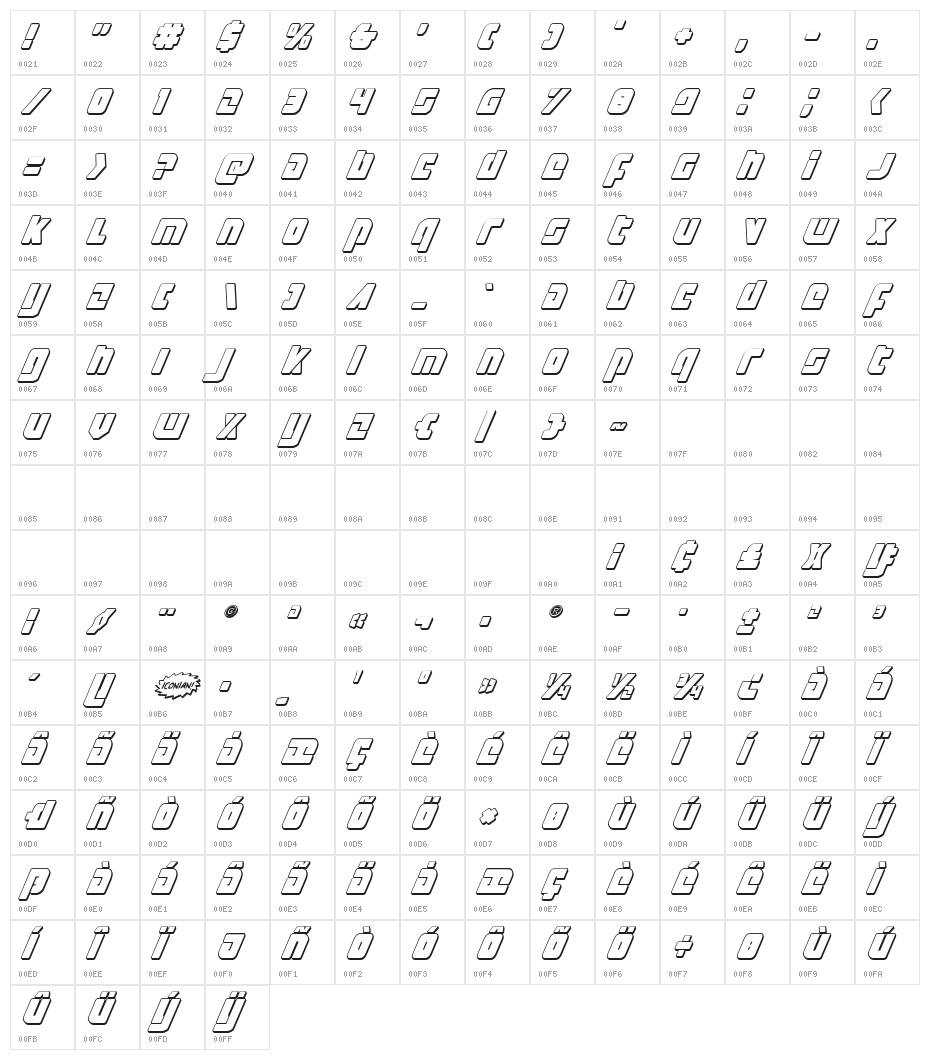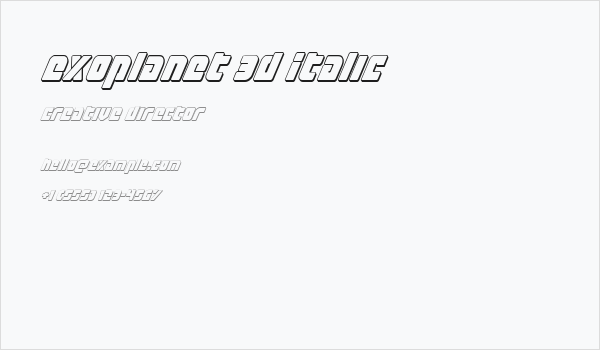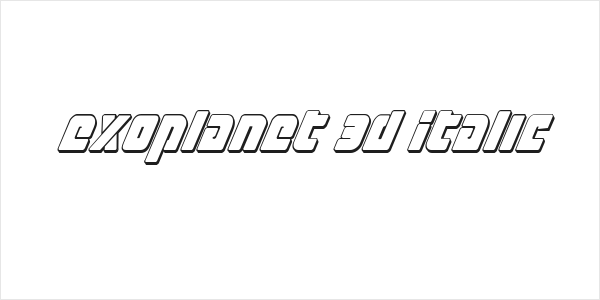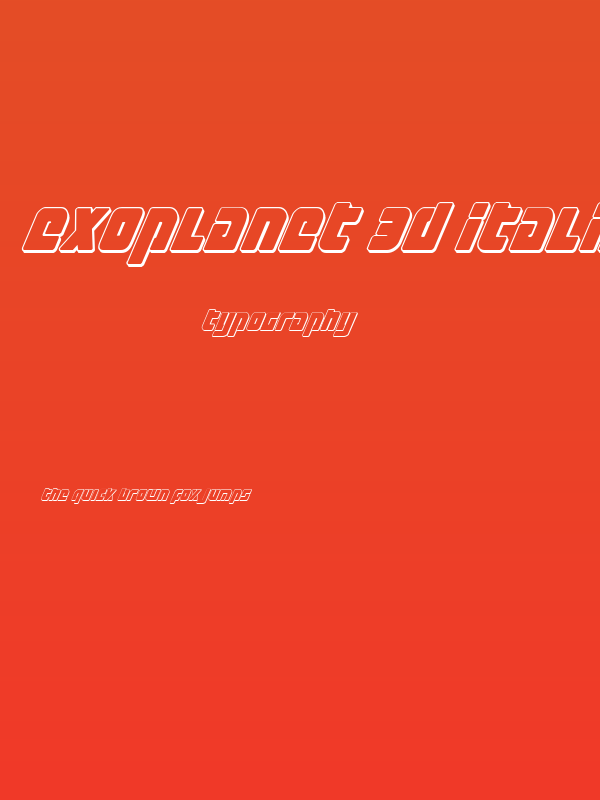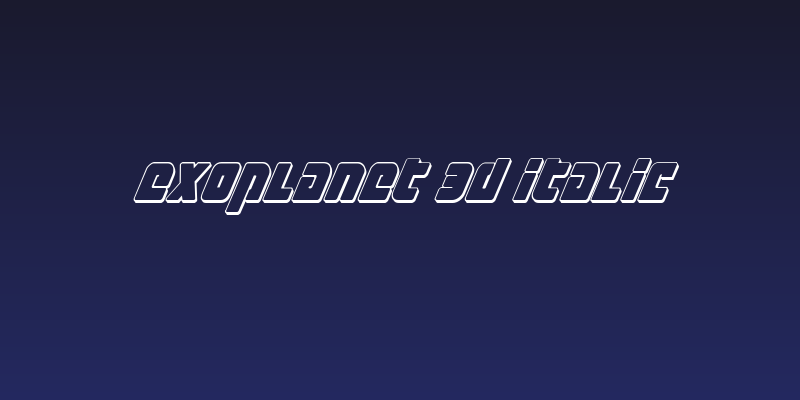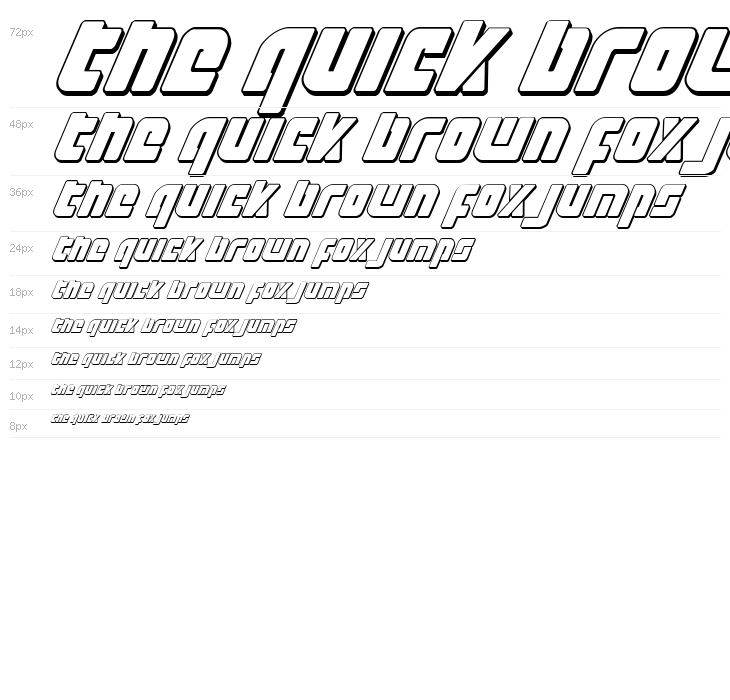
Exoplanet 3D Italic Font
Exoplanet 3D Italic Description
This font features a futuristic and bold design with a 3D effect that gives it a dynamic and modern look. The characters are outlined with a consistent stroke, creating a sense of depth and movement. The italicized style adds a sense of speed and forward motion, making it ideal for projects that require a contemporary and energetic feel. The uppercase and lowercase letters are well-proportioned, and the numbers and special characters maintain the same stylistic elements, ensuring uniformity across different text elements.
| Proposed Projects | Ideal for sci-fi themed designs, video game titles, tech branding, and futuristic posters. |